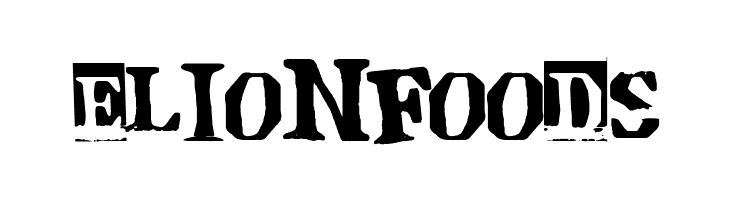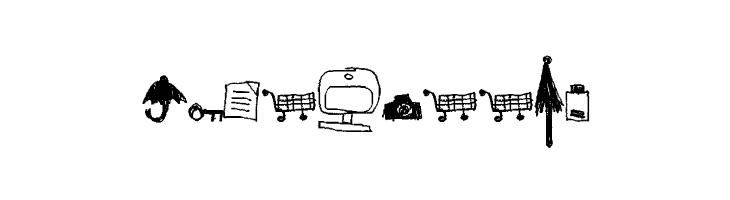
Modern, bold smartwatch icon set with geometric shapes.
A bold, playful font with rounded, hand-drawn characters.
A playful, bubbly font with interconnected, rounded characters.
A playful, bubbly font with rounded, cartoonish letterforms.
A lively, cursive font with fluid, connected strokes and a personal touch.
A bold, brush-style font with dynamic, expressive strokes.
A smooth, rounded font with a slight slant, offering a casual and approachable style.
A bold, modern font with geometric lines and a slightly condensed style.
A decorative font with a snowflake pattern, perfect for festive designs.
A playful, mountain-inspired font with bold, snow-capped characters.
A sleek, ultra-thin, and elongated font with consistent stroke width.
A playful, bold font with characters enclosed in square shapes, offering a casual and dynamic look.
Grungy, hand-drawn icon font with social media symbols.
A geometric and angular font with a futuristic and abstract design.
A bold, 3D font with rounded edges and a playful style.
A fluid and dynamic handwritten font with elegant, slightly irregular strokes.
Cartoonish, artist-themed pictorial font with each character as a unique illustration.
Cartoonish, hand-drawn squares featuring humorous artist scenes.
Casual handwritten script font.
A cursive, handwritten-style font with elegant, flowing strokes.
Decorative cartoon character illustrations used as font glyphs.
A dynamic, expressive handwritten font with fluid cursive strokes.
A lively and expressive handwritten font with fluid strokes and dynamic energy.
A lively and expressive handwritten font with dynamic letterforms.
Whimsical doodle font with playful elements.
A bold, distressed font with a vintage Soviet-era style.
A modern, geometric font with a sleek and minimalist design.
A futuristic, angular font with a dynamic slant and bold presence.
A dynamic, edgy handwritten font with sharp, angular strokes.
A rugged, distressed font with a hand-painted, graffiti-like style.
A dynamic, brush-style font with expressive, fluid strokes.
A bold, decorative font with a unique sketch-like pattern filling each character.